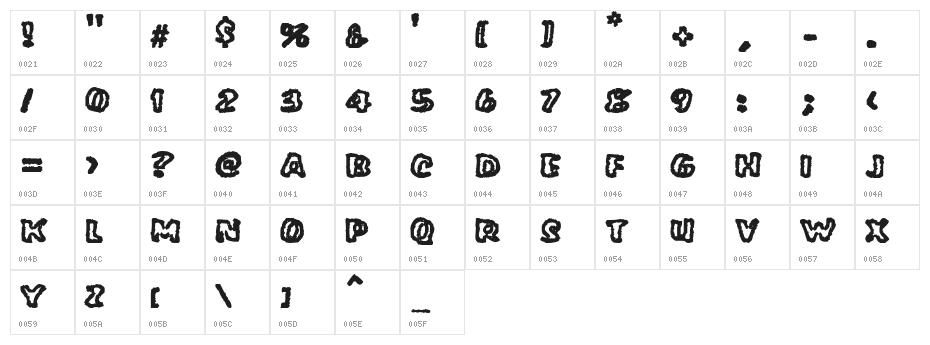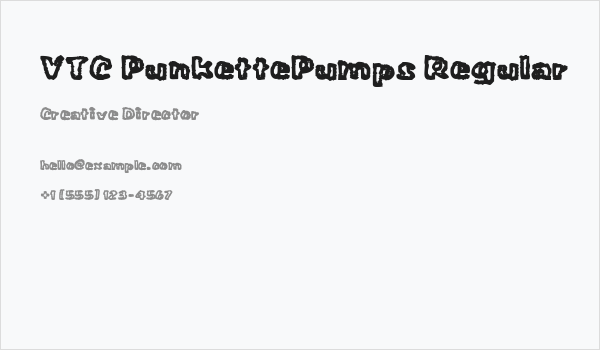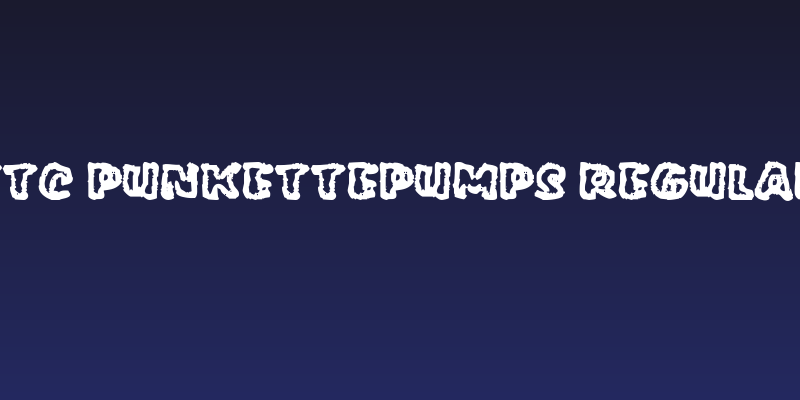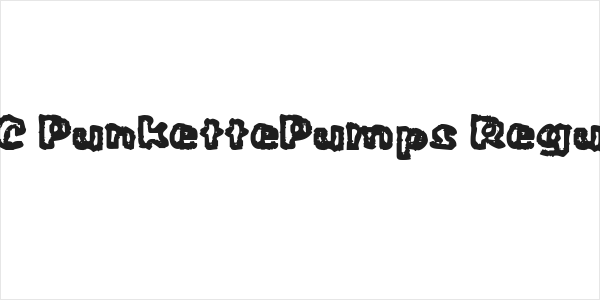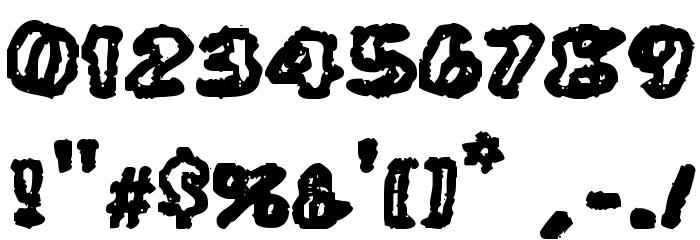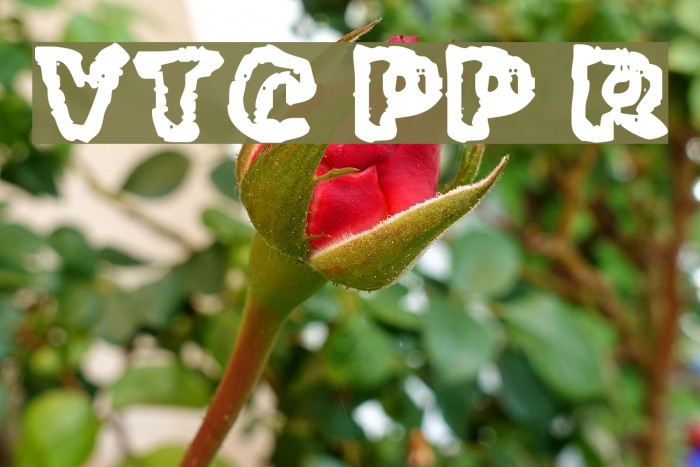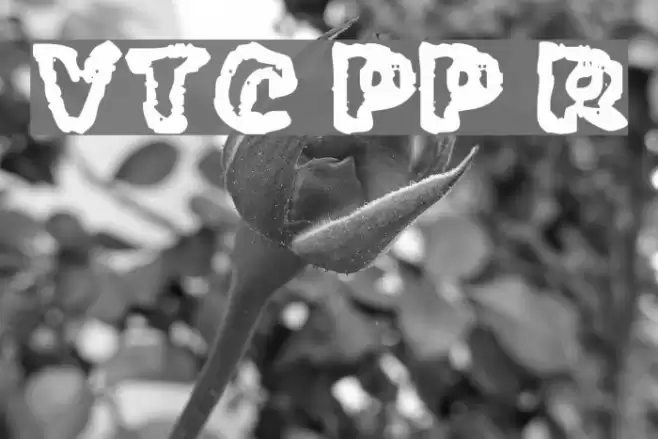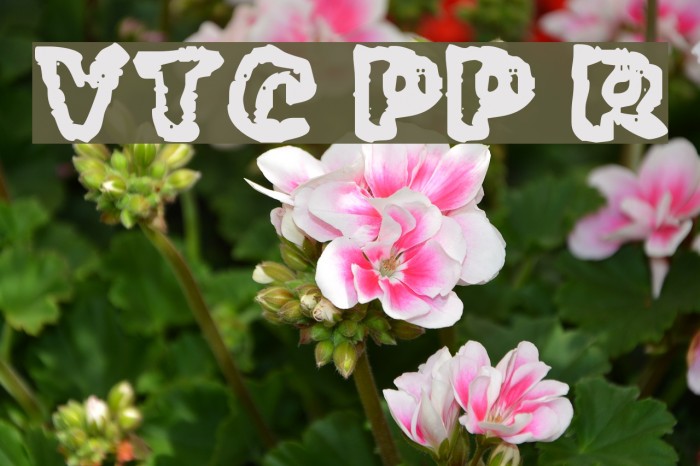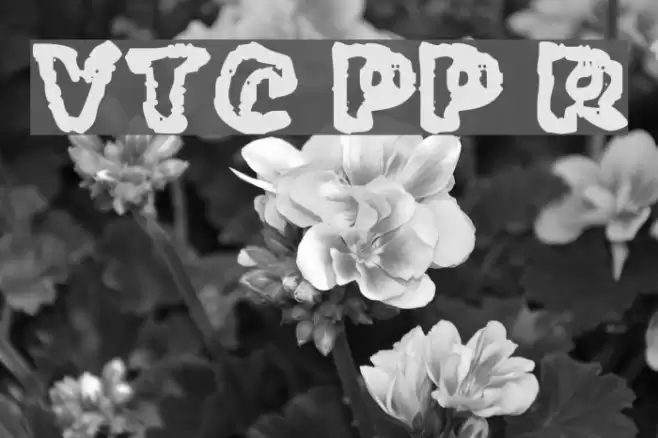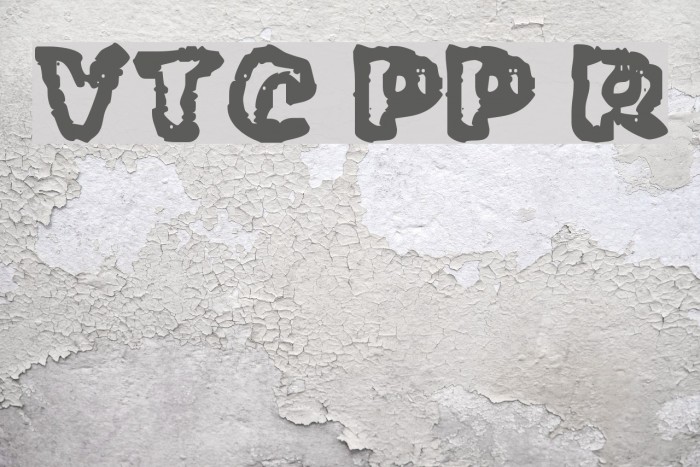
VTC PunkettePumps Regular Font
VTC PunkettePumps Regular Description
This font features a bold and edgy design with a distressed, grunge-like appearance. Each character is uniquely styled with irregular edges and a textured fill, giving it a hand-drawn, rebellious vibe. The uppercase and lowercase letters maintain a consistent style, while the numbers and special characters complement the overall aesthetic. The font's playful yet rugged look makes it stand out, ideal for projects that require a strong visual impact.
| Overall Style | Modern, Grunge |
| Use Case | Logos, Headlines, Posters |
| Proposed Projects | Ideal for music album covers, event posters, streetwear branding, and edgy social media graphics. |